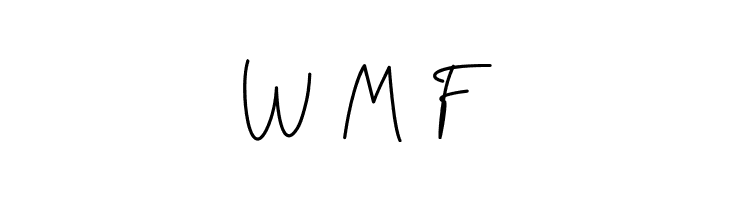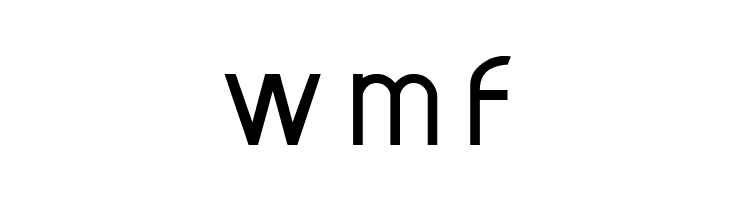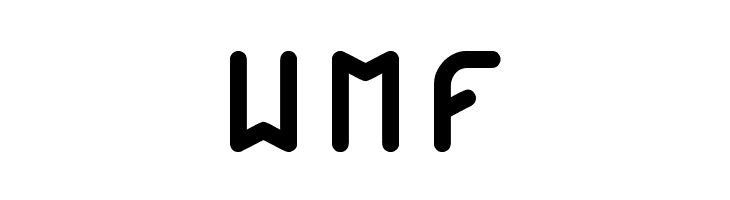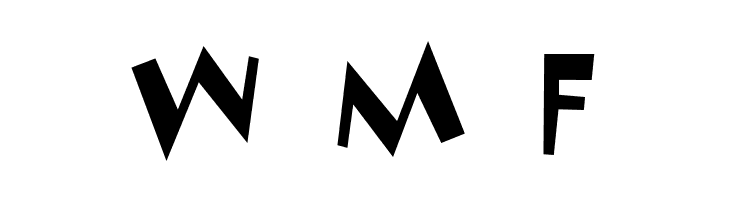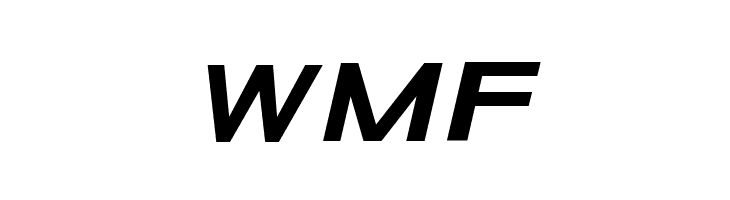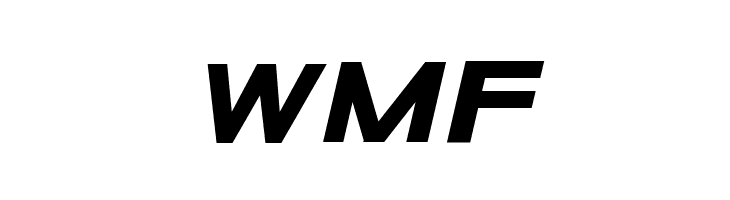
• Funhouse
A playful, bold font with irregular strokes and a lively, energetic appearance.
• FunMeatsDT
A playful, outlined font with a hand-drawn, whimsical style.
• Funttastic Pop
A playful handwritten font with a lively and casual style.
• FunZone Two Bold Italic
A bold, italic font with a dynamic and modern style.
• FunZone Two Italic
A modern, italicized font with a sleek and dynamic appearance.
• future
A bold, rounded font with a futuristic and modern aesthetic.
• future mood
A modern, geometric font with clean lines and a friendly appearance.
• FutureGirlfriend
A playful, handwritten font with dynamic, flowing strokes.
• Fuzzybrand
A lively handwritten font with fluid, cursive strokes and a playful elegance.
• gabiies handwritting